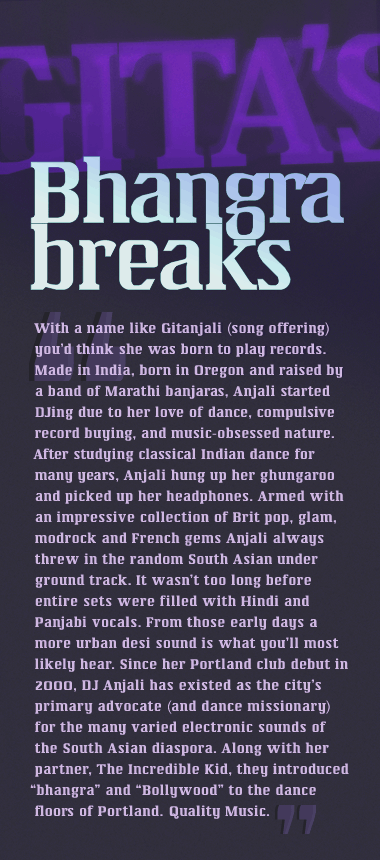
Beautiful!!!!!!! WOW
Magnifique! IMHO, you don't needs the seconds "K"s & "S"s.
You are right about the alternate Ks. They came early in the design process and are fairly extraneous. I think the alternate Ss are interesting to look at because both spines (the diagonally sloping and the more sinuous one) are executable for both uppercase and lowercase – all in such a minuscule matrix. I think my default selections are the best, though it turns out my final selections are actually mismatched (sinuous uppercase, sloping lowercase)! :)
Very nice indeed. Love the ink traps. In fact lots of subtle flair all over it. Go to the top of the class.
Three syllables. A. May. Zing. Great curves, great everything. 6x(14÷7)-2/10, to make you do a little math.
Congrats for the TP! Really I love this font!
Woooow! This is one of the best serif fonts here on FS!
10.00001/10
This is really great: 10/10. I must admit though, that I like the lowercase better than the uppercase. But I guess that's always the case when I see typefaces.
I dunno. But i think it looks like Cambria, especially in A
Some serious fontstruction going on here. Despite tiny imperfections (inset: the serif of U showing asymmetry), the necessary trade off of brick anatomy, it looks very polished. You clearly paid attention to detail. I like the minuscule nooks, clever ink traps, and infinitesimal optical adjustments (e.g. diagonal part of the N), only close inspection could explore. When completed, I would love to see Ohm Run Slab among the Featured Downloads. 10/10
Magnificent. Impeccable. Something anyone could really use.
I am with 3moDuDe. I am stunned by the ink traps!
Hmm... This doesn't really matter, but there is a little thing on the middle serif of the m. The cut-off part... you know what I mean. Just thought I might point that out. I still think this is fantastic, though.
The only reason I haven't said anything about this as yet is, well, what can I say except: It's brilliant.
I have been continuing to adjust the very fine details before delving further into the glyph space – it is quite amazing just how much subtlety of variation is possible with stackable composites.
The new binocular g is an interesting case, as it requires complex stacked composites that span fractional strokes in both axes.
I revised several of the caps. Most notably, I slightly extended the arms and emboldened the terminals of C, E, F, G, S, and Z. These last two experienced the most significant change, both growing suitable beaks. I think I have struck a greater resonance between the upper and lowercase with these revisions, and generally improved things. Let me know! :)
That g is to die for. It's turned from a very good design into a knockout typeface. One of the very best I've ever seen on FS.
it's not possible that I miss this one... this is great work
Marvelous slab. precision work WOW!
I further tweaked and propagated the stroke construction of the new g across a, c, e, f, j, o, s, t, y, and z. The balance of stroke contrast is now much more consistent for each of these characters (particularly a and e) and more closely matches the contrast of b, d, m, n, etc.
Your sample clearly demonstrates the potential of Fontstruct to create high quality versatile text fonts. Superb punchcutting job!
Wow. I was about to comment on how the e is too weird and you changed it! Yay!
Besides, they just look really nice, this font is a perfect example. Really cool Q.